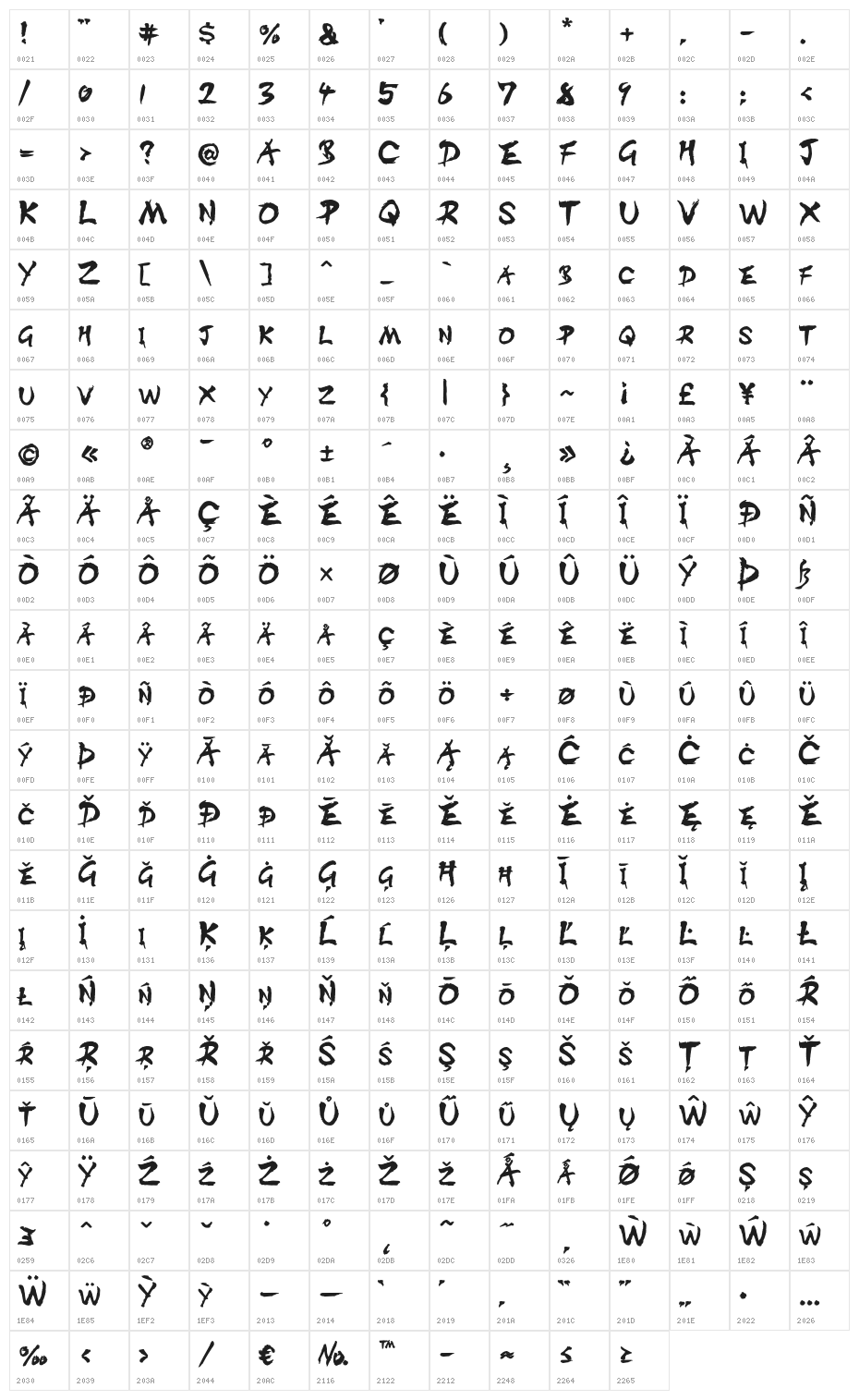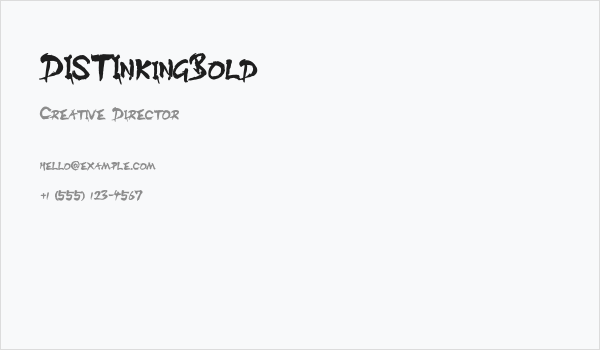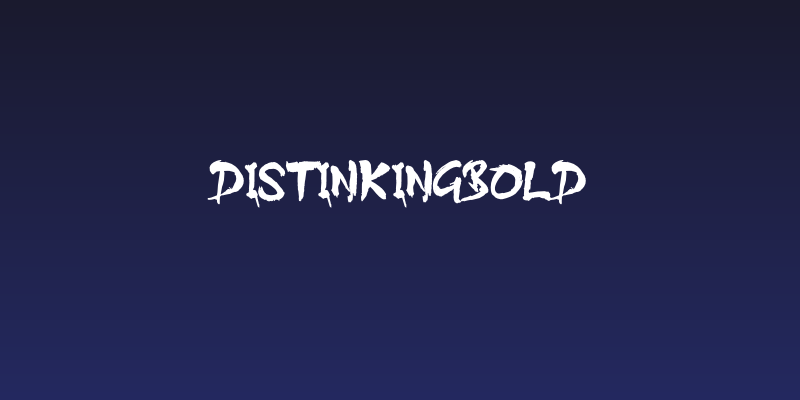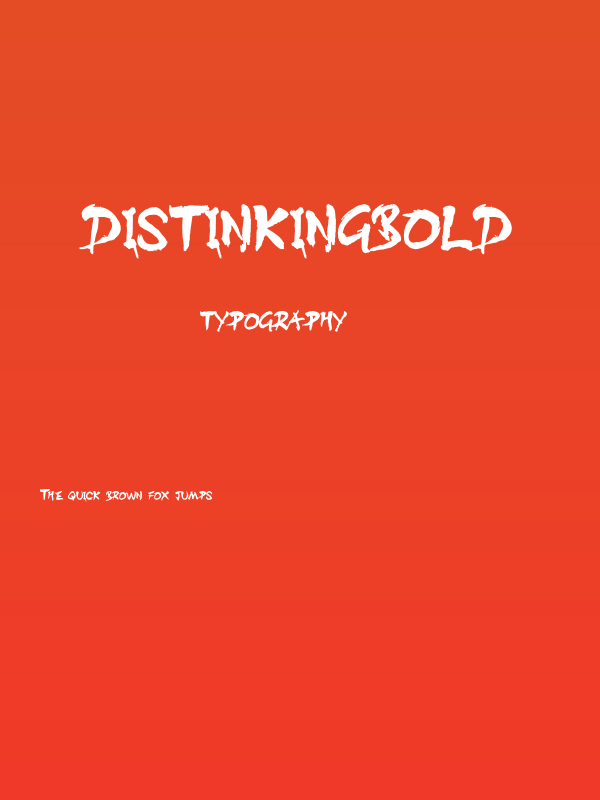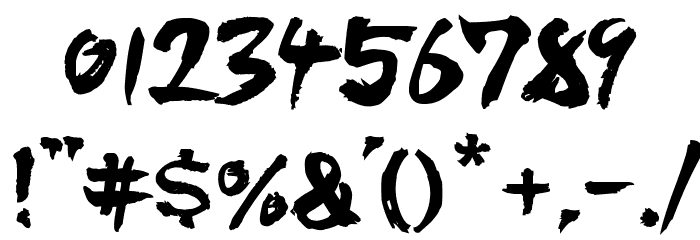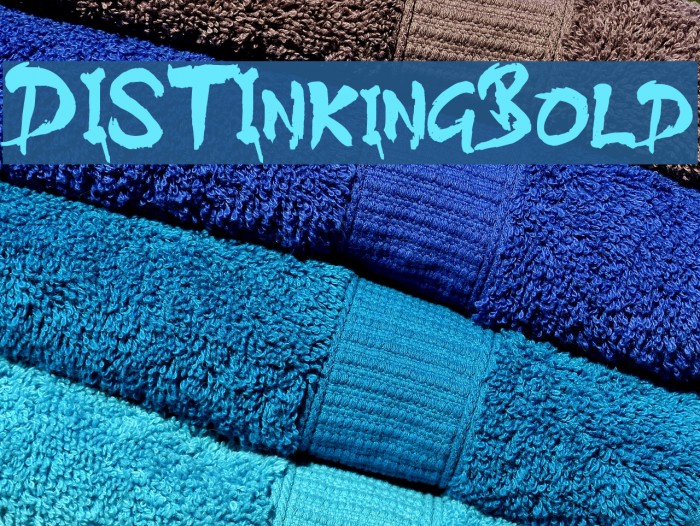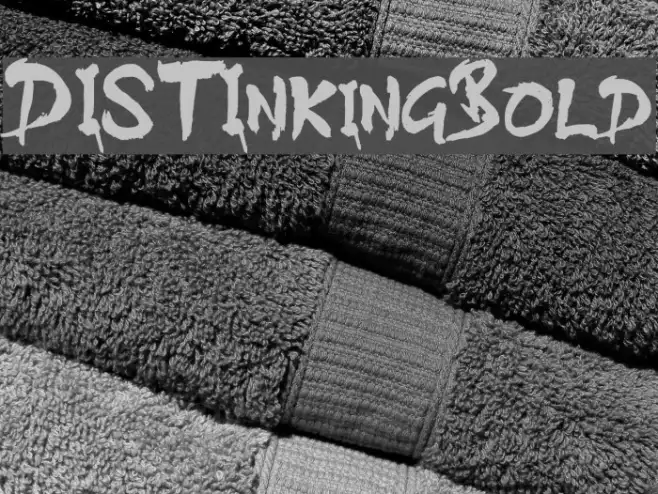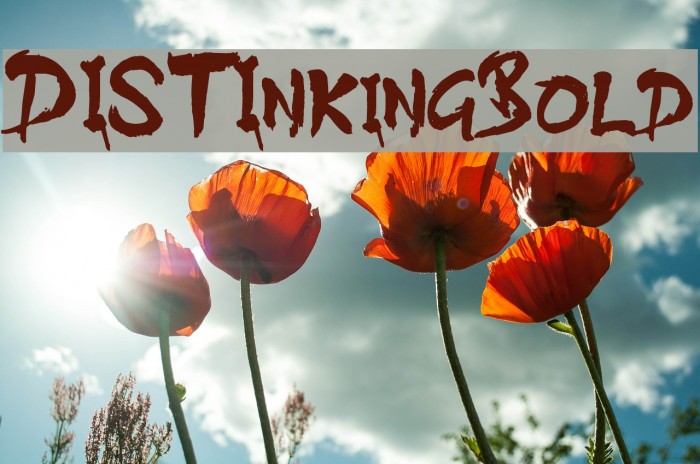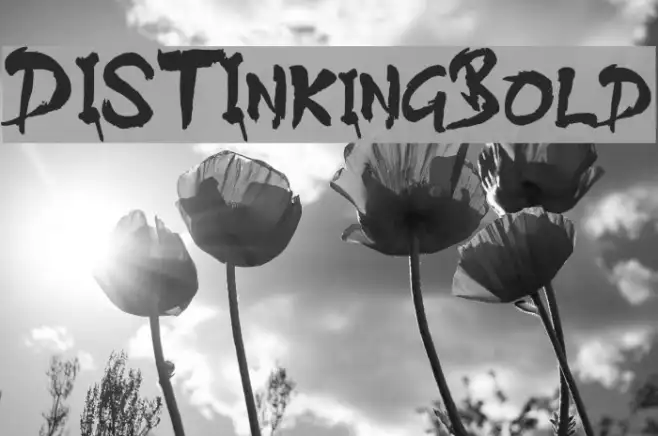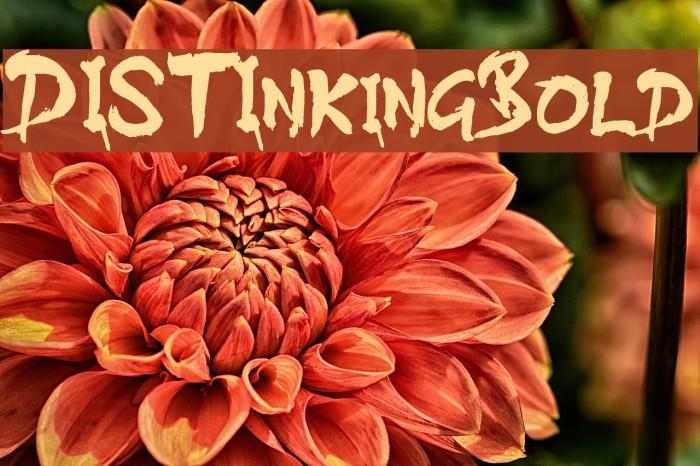
DISTInkingBold Font
DISTInkingBold Description
This font features a bold and dynamic brush script style, characterized by its expressive and energetic strokes. The letters exhibit a hand-painted appearance, with irregular edges and varying thickness that add a sense of movement and spontaneity. The uppercase and lowercase letters maintain a consistent style, with a slightly condensed form that enhances readability while preserving the artistic flair. The numerals and special characters are equally bold, complementing the overall aesthetic. This font is ideal for projects that require a strong visual impact and a creative, artistic touch.
| Proposed Projects | Ideal for branding, posters, album covers, and creative advertising campaigns. |